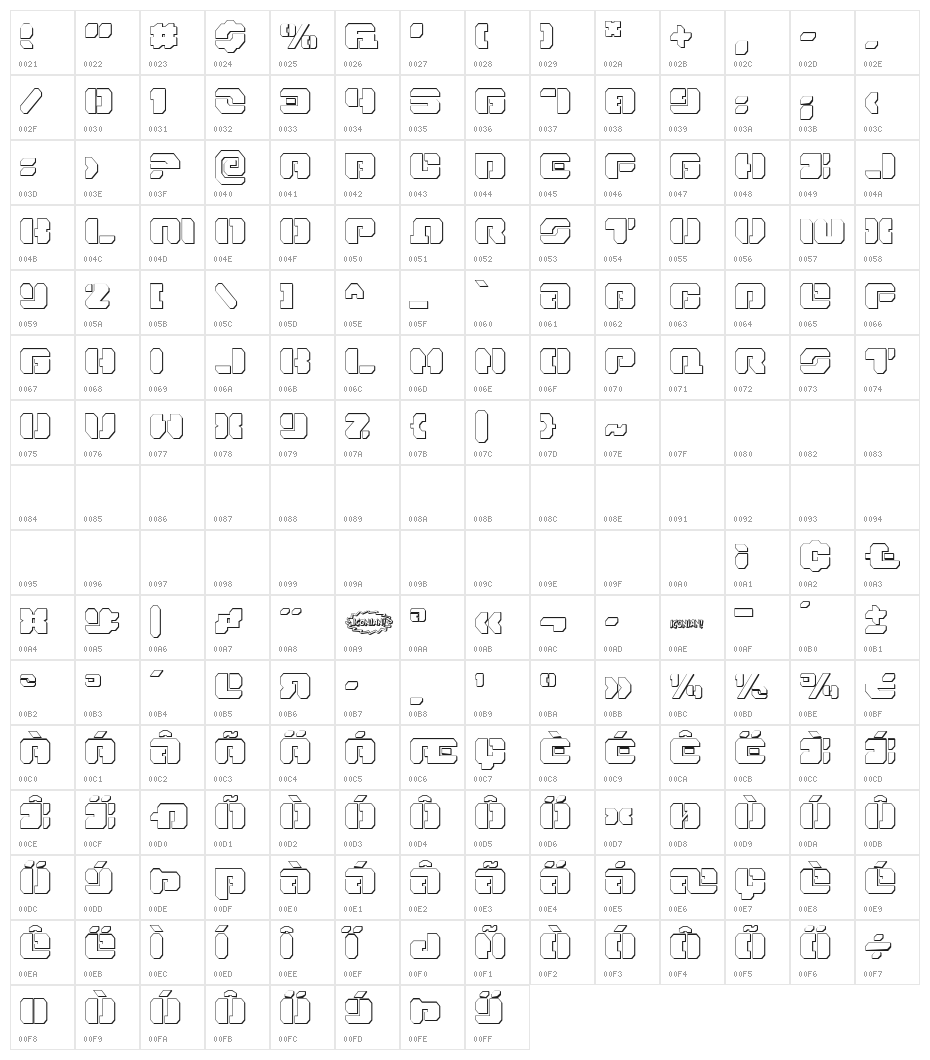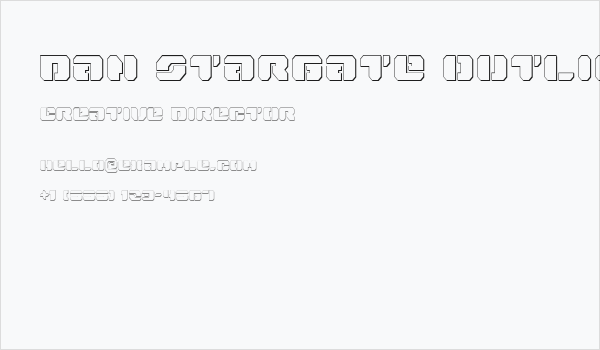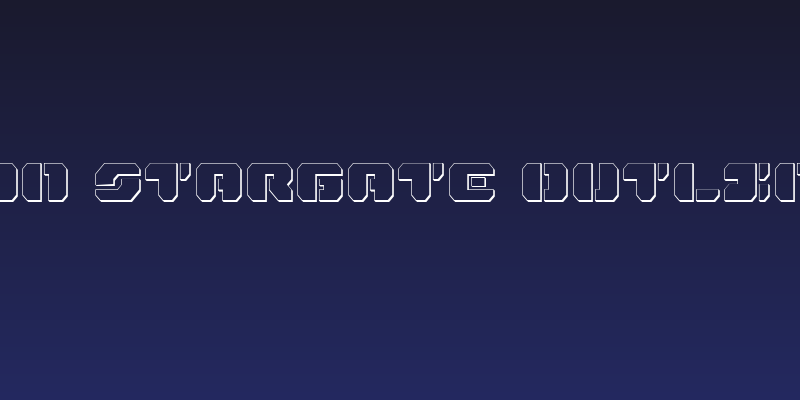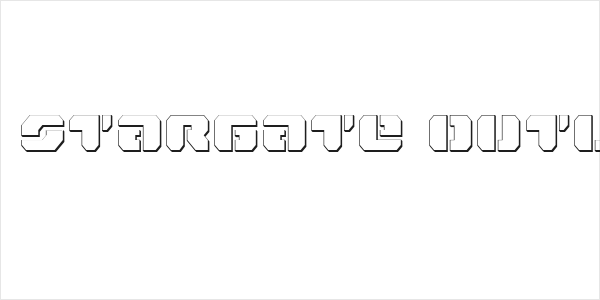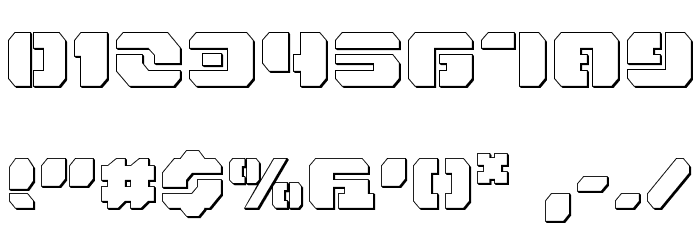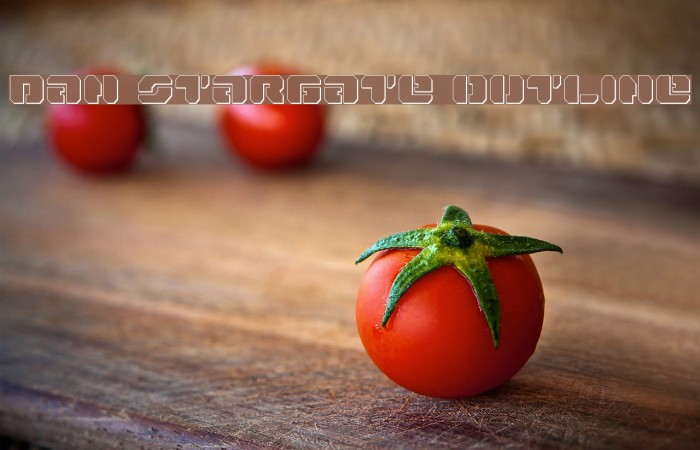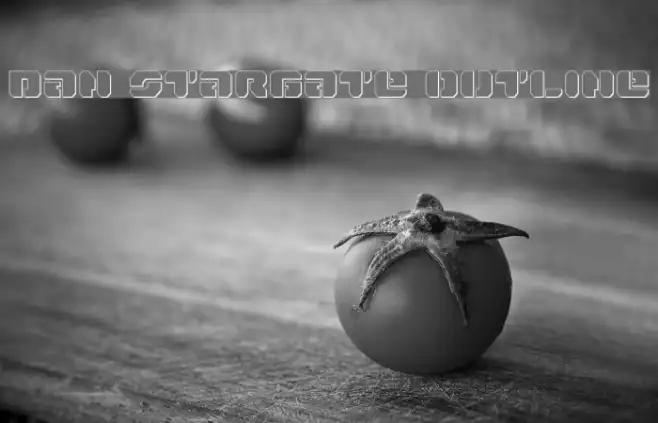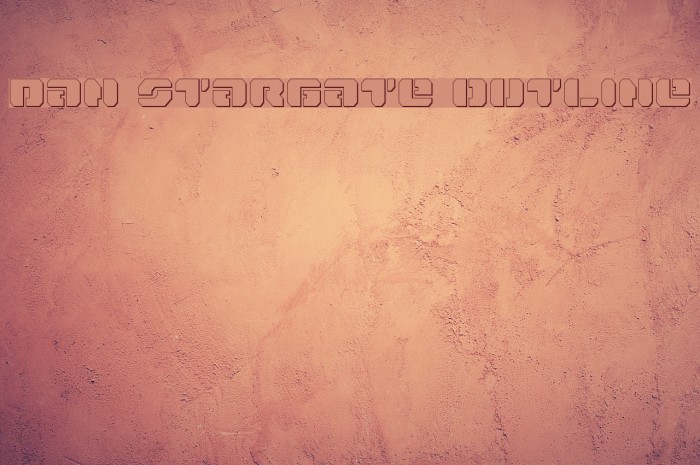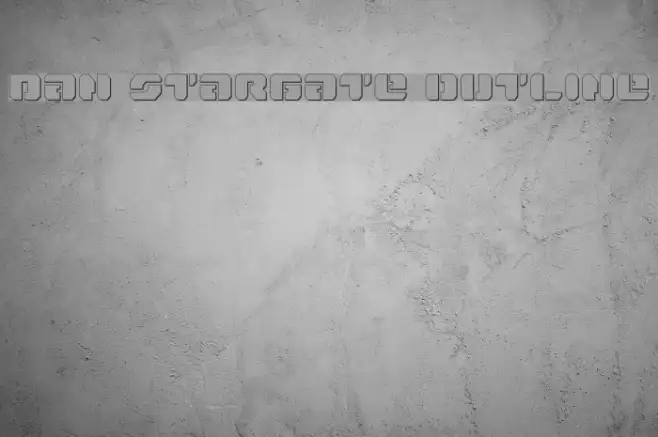
Dan Stargate Outline Font
Dan Stargate Outline Description
This font features a futuristic, geometric outline style with bold, angular shapes. Each character is crafted with a distinct blocky appearance, giving it a strong, industrial feel. The outlines are consistent in thickness, creating a uniform look across all characters. This font is highly stylized, making it ideal for projects that require a modern and edgy aesthetic. The uppercase and lowercase letters maintain a cohesive design, while the numbers and special characters complement the overall theme. The font's unique structure makes it stand out, perfect for attention-grabbing headlines or logos.
| Proposed Projects | Ideal for sci-fi themed designs, technology branding, video game titles, and modern posters. |